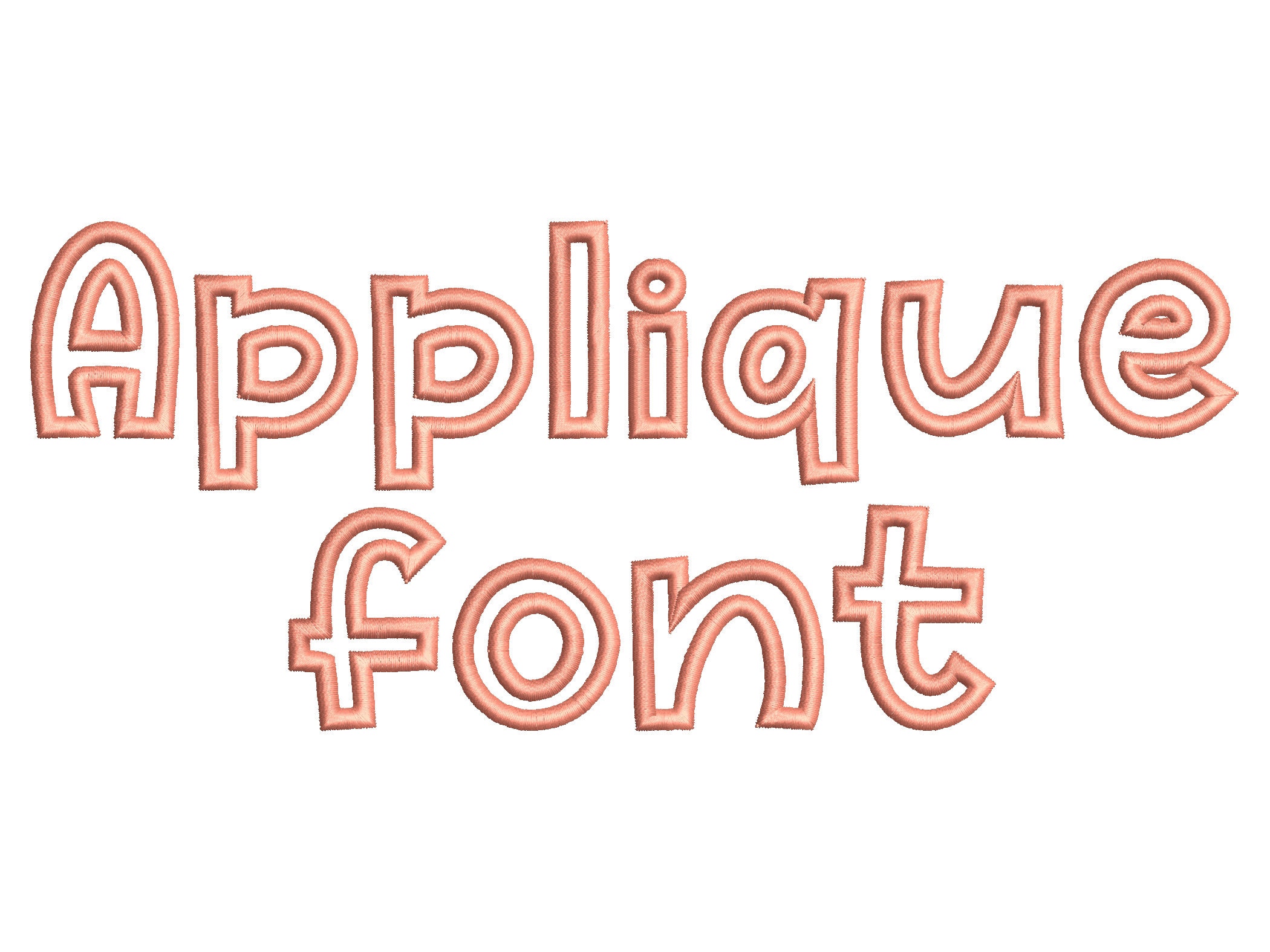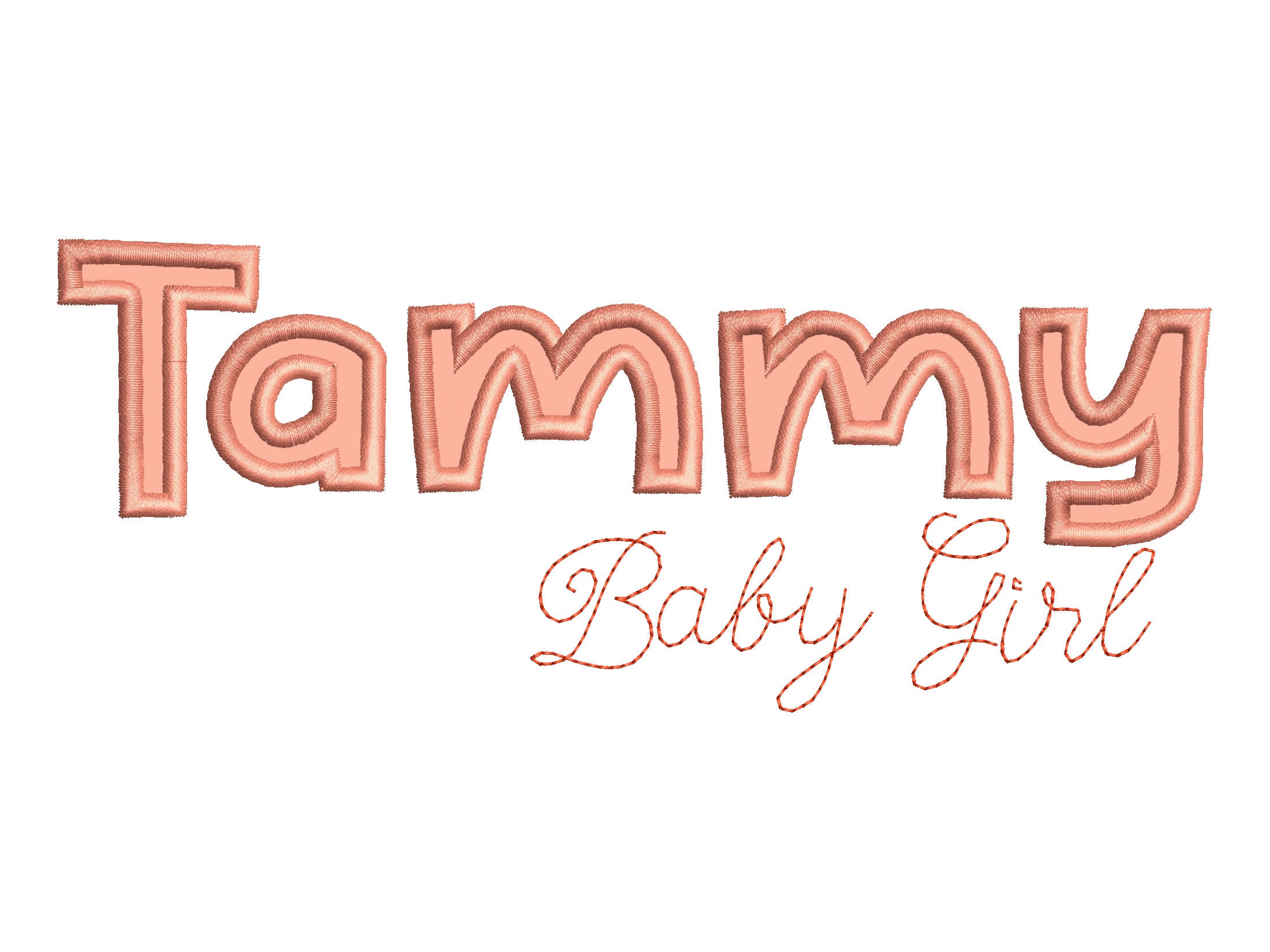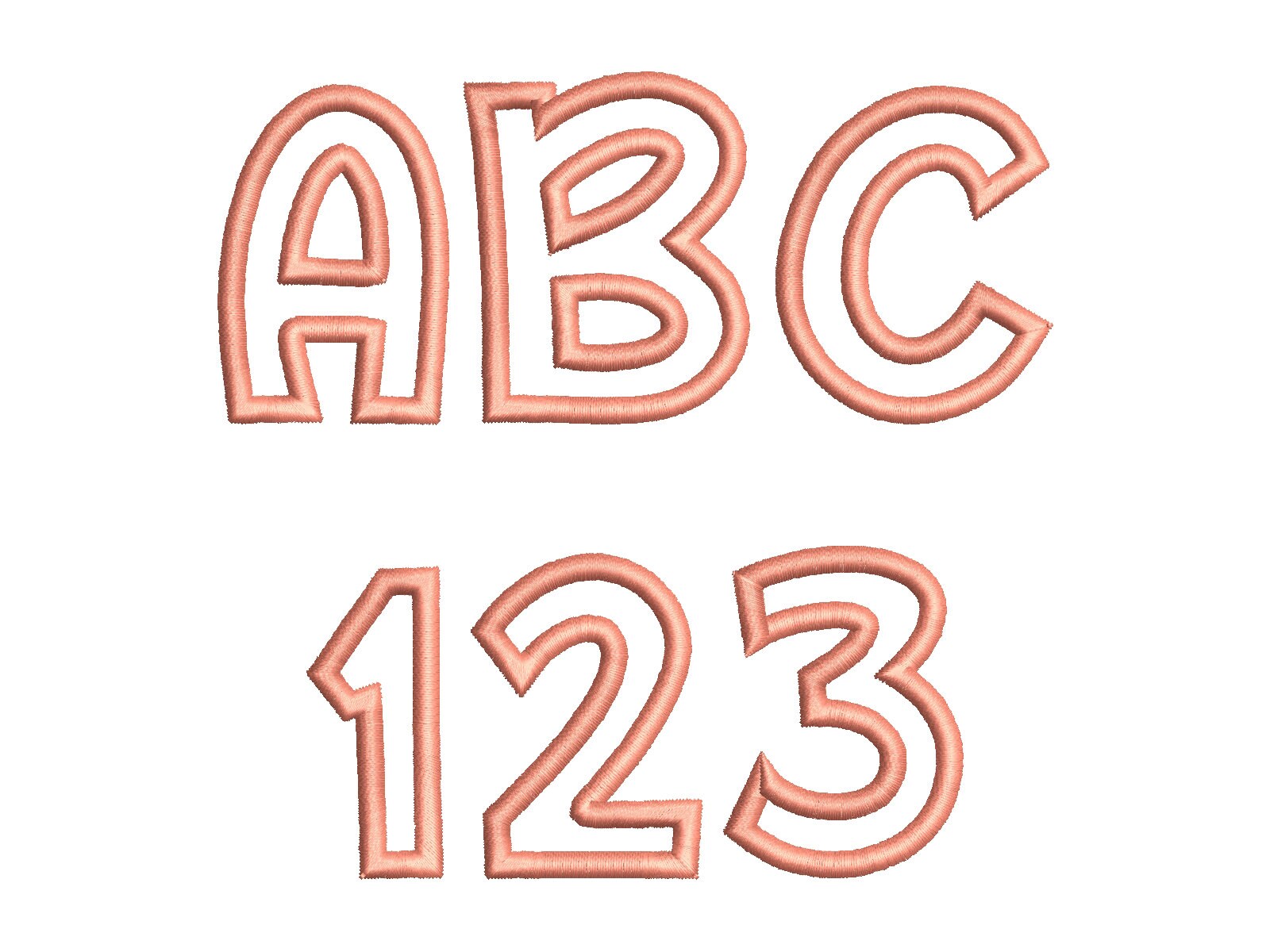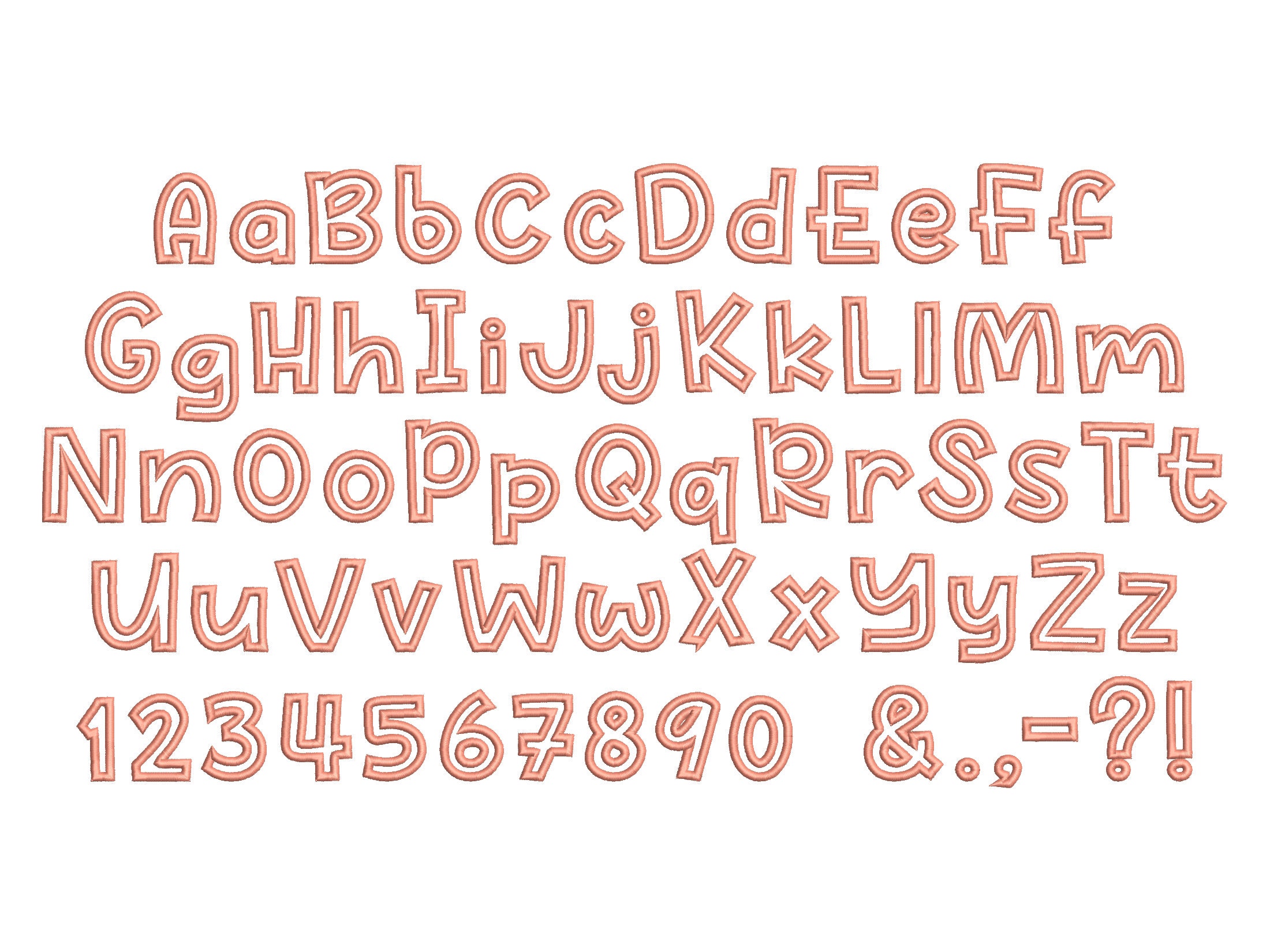
Applique Font bold alphabet machine embroidery designs monogram name letters and numbers sizes 1.3, 1.7, 2, 2.5, 3.5 inches BX included!
Uppercase and lowercase letters, numbers and punctuation.